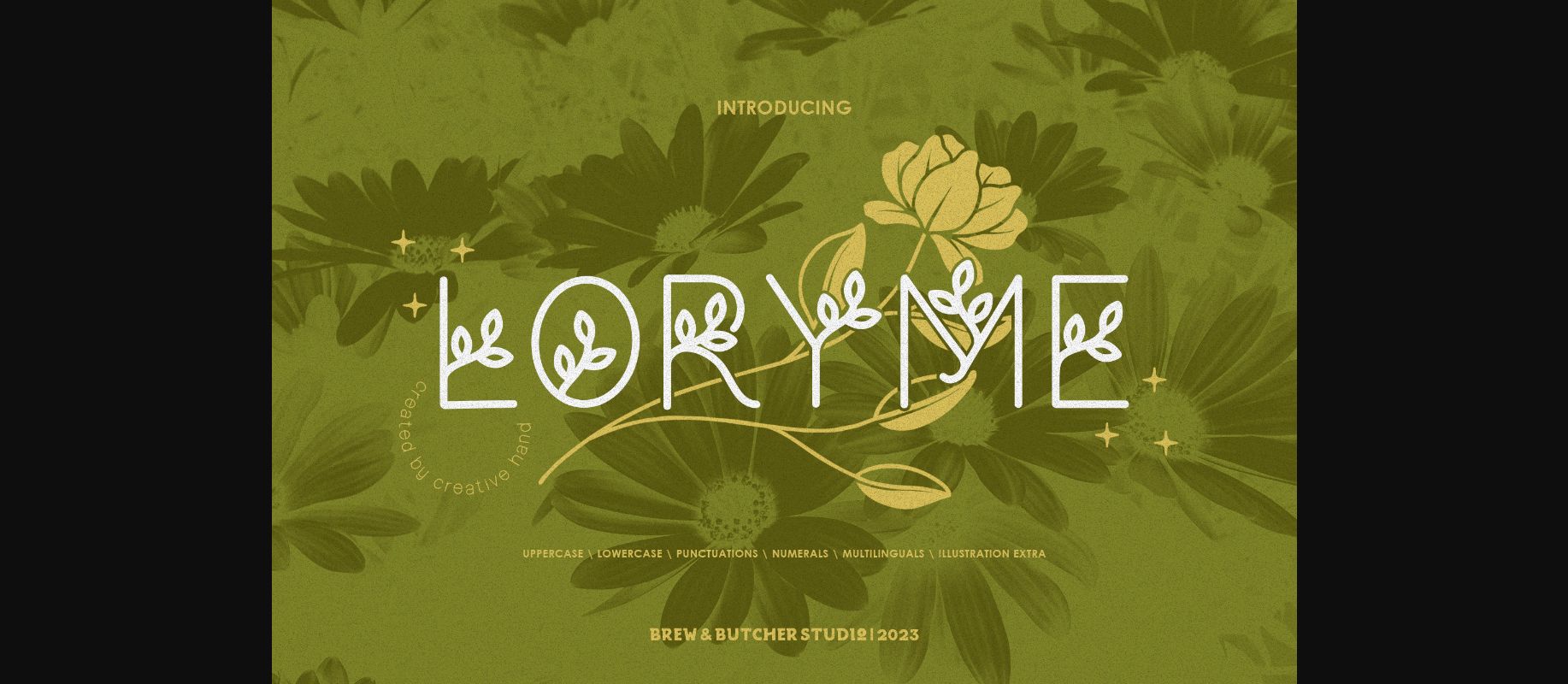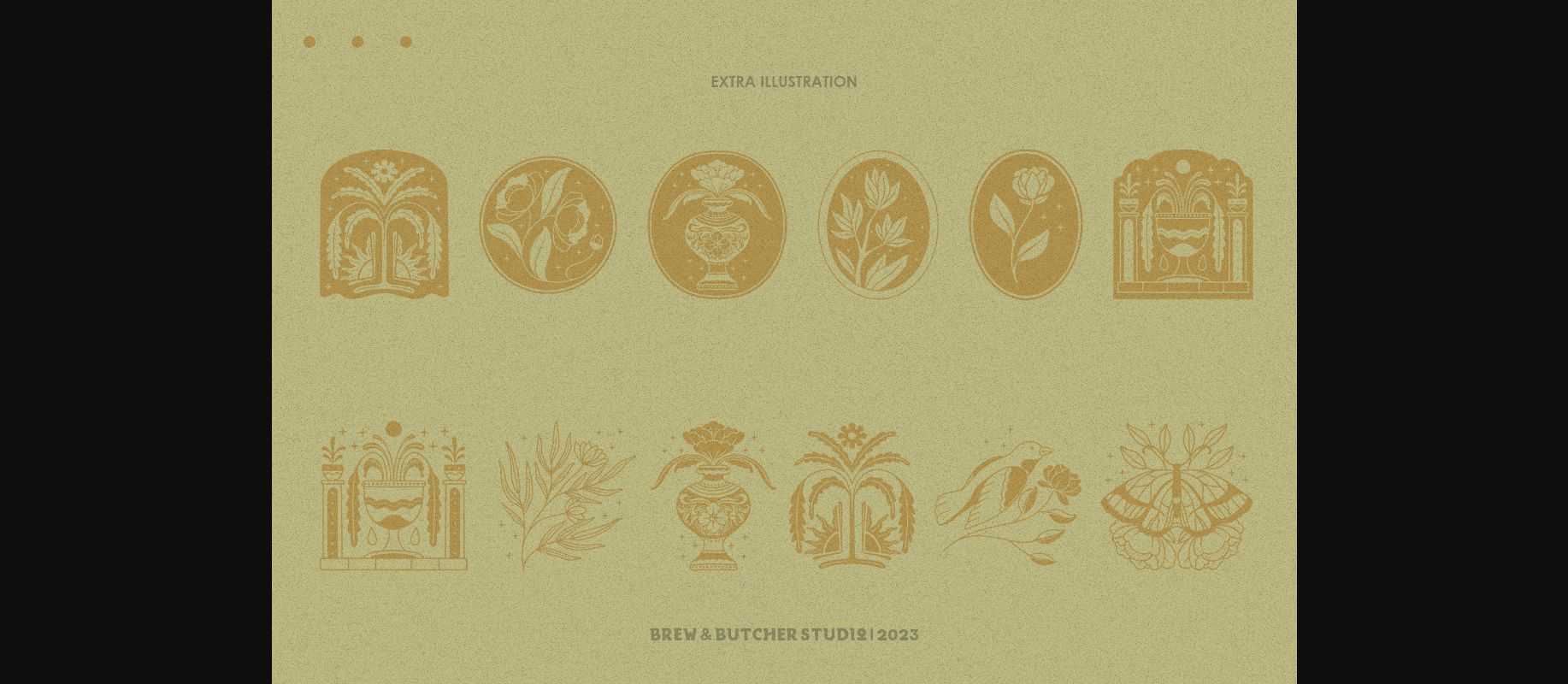
About Loryme Font
Loryme is a smooth decorative typeface, with simple and unique lines. A little bit quirky, this font looks incredibly adept in a wide variety of contexts!